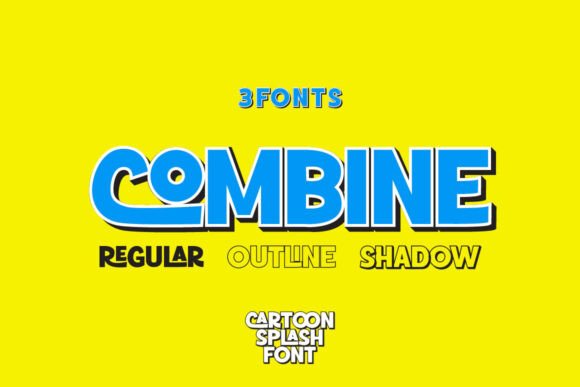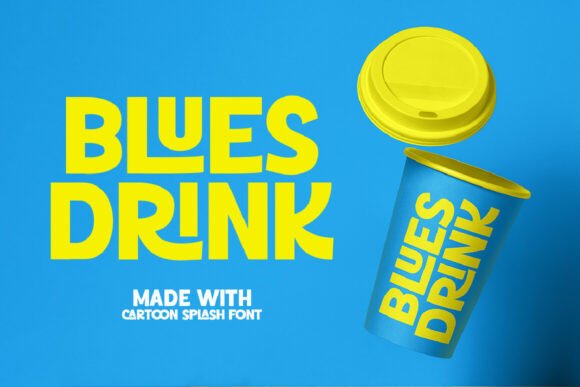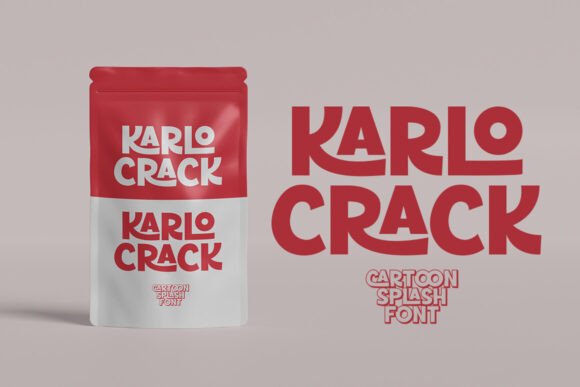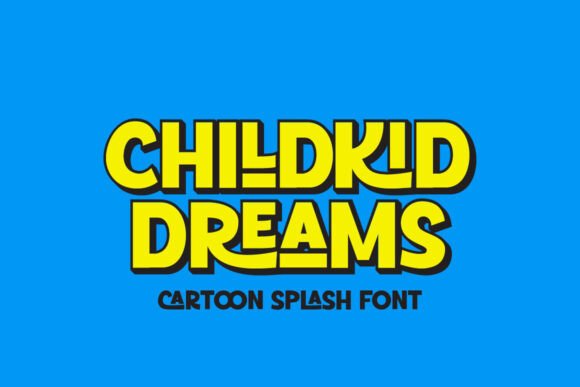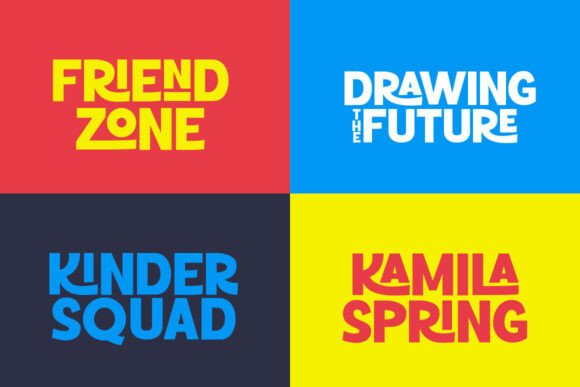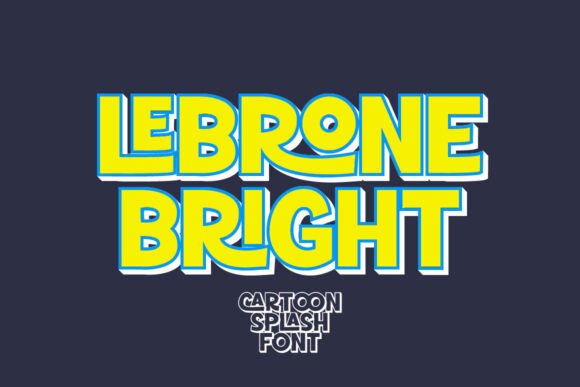
Unlock the Magic of Cartoon Splash Font
Do you remember the thrill of creating your first comic strip or drawing a cartoon character? The joy of bringing your imagination to life and watching it spring onto the page? As designers, we’re always on the lookout for ways to inject that same sense of wonder and excitement into our work. That’s where the Cartoon Splash Font comes in – a bold and lively display font designed to bring a smile to your audience’s faces.
Perfect for projects that need an extra dose of happiness, Cartoon Splash Font features playful ligatures that add a charming, cartoon-inspired touch to your text. Whether you’re working on kids’ books, comic designs, party invitations, or posters, this font fills your designs with personality and energy. As a designer, you’ll love the versatility of Cartoon Splash Font, which can add a touch of whimsy to any project and make your words truly pop.
- Font Family: Cartoon Splash is a unique, hand-drawn font that can be used for various creative purposes, including logos, headings, and titles.
- Character Set: The font includes a wide range of characters, including uppercase and lowercase letters, numbers, punctuation marks, and special characters.
- Unique Characteristics: The font’s hand-drawn style, playful feel, and customizable options make it an ideal choice for designers seeking a creative and eye-catching font.
Cartoon Splash Font Review
As a designer, I was excited to dive into the world of Cartoon Splash Font. Here’s my honest review:
This font is perfect for creating a playful, whimsical atmosphere. It’s ideal for children’s books, cartoons, and other projects that require a lighthearted tone.
- Unique and fun design that stands out from the crowd
- Works well in bold and italic variations
- Good for short phrases and titles
While Cartoon Splash Font has its charm, there are some limitations to consider:
- Not suitable for long blocks of text (gets tiresome to read)
- Limited language support (may not be ideal for international projects)
- Can be difficult to read in small sizes
Cartoon Splash Font is a great addition to any designer’s toolkit, but it’s essential to use it in moderation. It’s perfect for creating a bold, eye-catching statement, but not ideal for everyday text. With some creative restraint, this font can add a playful touch to your designs.
Tips for Getting the Most Out of Cartoon Splash Font
Use the Cartoon Splash Font for playful, whimsical designs that require a fun and lighthearted tone. Experiment with different font sizes, colors, and combinations to create a unique visual effect.
The Cartoon Splash Font is ideal for: children’s book illustrations, party invitations, social media graphics, and advertisements targeting a young audience.
Alternatives to Cartoon Splash Font
Comic Sans MS is a casual, playful font that can add a lighthearted touch to designs. It is suitable for informal projects, such as children’s books, websites, or social media graphics. However, it may not be the best choice for professional or formal designs due to its overuse and criticism.
Compared to Cartoon Splash Font, Comic Sans MS is more straightforward and less stylized. While both fonts aim to evoke a playful atmosphere, Comic Sans MS is more versatile and widely available.
Luckiest Guy
Luckiest Guy is a fun, handwritten font that works well for designs that require a carefree and energetic feel. It is ideal for projects such as advertising, posters, or promotional materials. The font’s irregularities and flair make it suitable for adding a personal touch to designs.